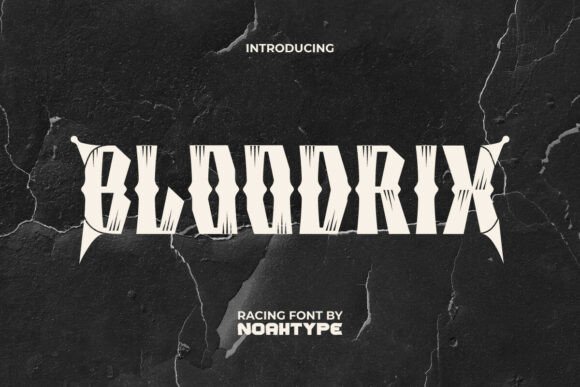
Bloodrix Font: Unleash the Spirit of High-Octane Speed and Raw Adrenaline
In the world of typography, few fonts capture the essence of power and performance as effectively as the Bloodrix Font. Designed by NoahType, this unique decorative font is engineered for those who live life in the fast lane. With its aggressive, sharp-edged serifs and distinctive “clawed” or “dripping” vertical accents, Bloodrix embodies the grit of the racetrack and the intensity of extreme sports.
The Design Behind Bloodrix Font
Bloodrix Font is more than just a set of characters; it’s a visual statement of power and performance. The design process involved meticulous engineering to create a typeface that not only stands out but also communicates a sense of urgency and dynamism. The sharp, aggressive serifs give the font its distinctive look, while the unique vertical accents add a sense of movement and energy.
Perfect for High-Intensity Designs
Bloodrix Font is ideal for designs that require a bold and daring aesthetic. Whether you’re working on a project for a professional racing team, a streetwear brand, or a high-intensity energy drink, this font delivers an unmistakable impact. Its versatility makes it an essential tool for modern designers looking to make a statement.
Applications of Bloodrix Font
The Bloodrix typeface excels in large-scale applications where its bold and dynamic aesthetic can be fully appreciated. Some of the ideal uses for Bloodrix Font include:
- Automotive Liveries: Give your car design a bold and aggressive look with Bloodrix Font. Its sharp edges and dynamic accents make it perfect for racing stripes, logos, and other design elements.
- Event Posters: Create eye-catching posters for motorsports events, concerts, or festivals with Bloodrix Font. Its bold and attention-grabbing aesthetic ensures that your poster stands out.
- Gaming Interfaces: Add a touch of high-octane excitement to your game design with Bloodrix Font. Its dynamic look and feel make it perfect for game titles, buttons, and other UI elements.
Pairing Bloodrix Font for Maximum Impact
To truly enhance your project, consider pairing Bloodrix Font with other fonts that complement its bold and dynamic aesthetic. Some font pairing suggestions include:
- Montserrat: A sleek and modern sans-serif font that provides a clean contrast to Bloodrix’s aggressive look.
- Open Sans: A friendly and approachable sans-serif font that helps balance out Bloodrix’s boldness.
- Arial Black: A classic bold font that matches Bloodrix’s intensity and creates a cohesive look.
Why Choose Bloodrix Font?
Bloodrix Font offers a unique combination of style, versatility, and impact that makes it an essential tool for designers. Here are some reasons why you should consider using Bloodrix Font in your next project:
- Unique Design: Bloodrix Font features a distinctive design that sets it apart from other fonts.
- High-Quality Engineering: The font is meticulously engineered for optimal performance and legibility.
- Versatility: Bloodrix Font excels in various applications, from automotive liveries to gaming interfaces.
Bloodrix Font is a powerhouse display typeface that embodies the spirit of high-octane speed and raw adrenaline. Its aggressive, sharp-edged serifs and unique vertical accents make it perfect for designs that require a bold and daring aesthetic. With its versatility and impact, Bloodrix Font is an essential tool for modern designers looking to make a statement. Try pairing it with other fonts to enhance your project and unleash the full potential of Bloodrix Font.